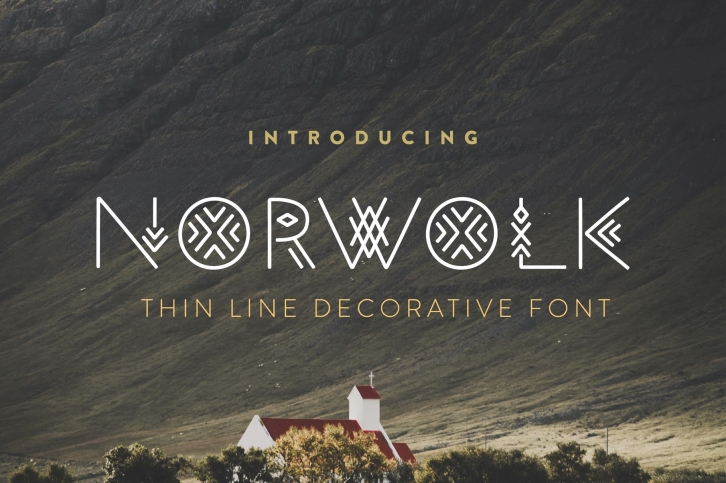
Norwolk - Thin Line Decorative Font Download
Norwolk is a great font that was designed by Struvictory.art. Imagine the amount of combinations you can create using this font! The archive is 5.66 MB and it was released on August 20, 2019. Norwolk looks beautiful on wedding invitations, greeting cards, logos, posters, labels, t-shirt designs, logos, business cards and is perfect for use in ink or watercolor works, fashion, magazines, packaging and food menus, children's books and more!